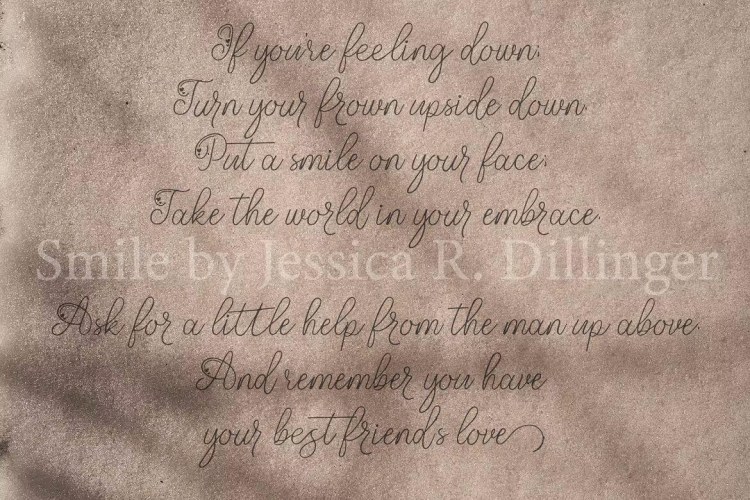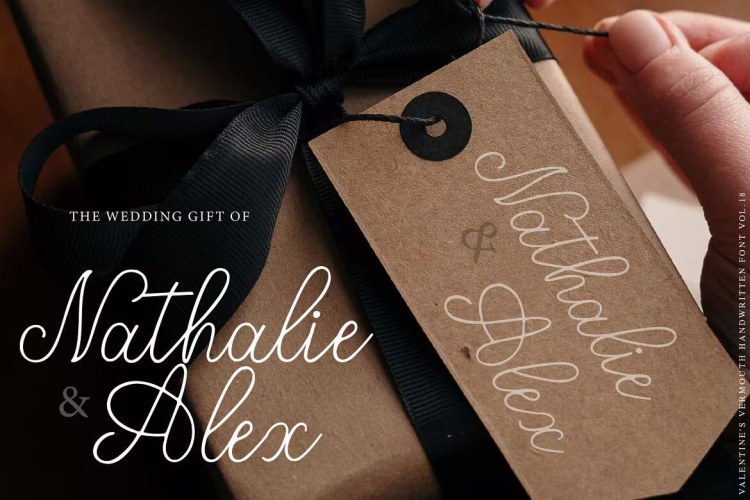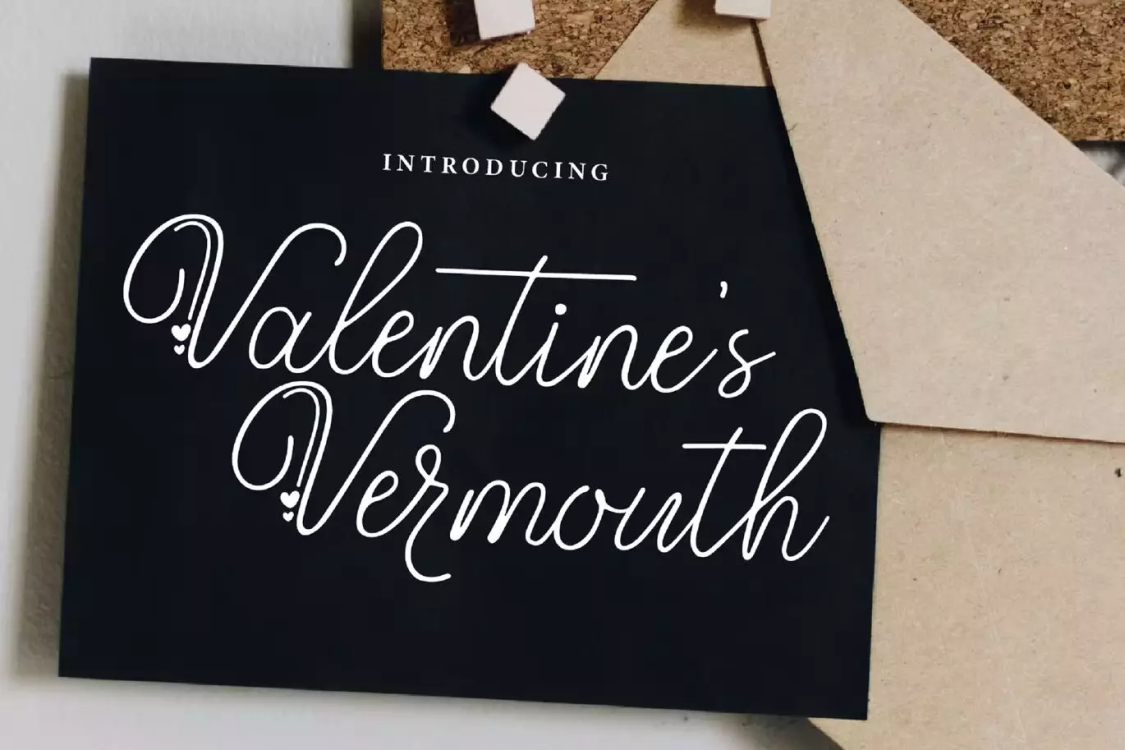
Valentines Vermouth Font Family
Valentine’s Vermouth is a beautiful and light handwritten font with a unique feel and a stunning impact. This font is PUA encoded, which means you can easily access all of the glyphs and swashes!
Valentines Vermouth Font Family is a Script And Handwritten font that brings a professional and versatile look to your projects. Valentine’s Vermouth is a beautiful and light handwritten font with a unique feel and a stunning impact.